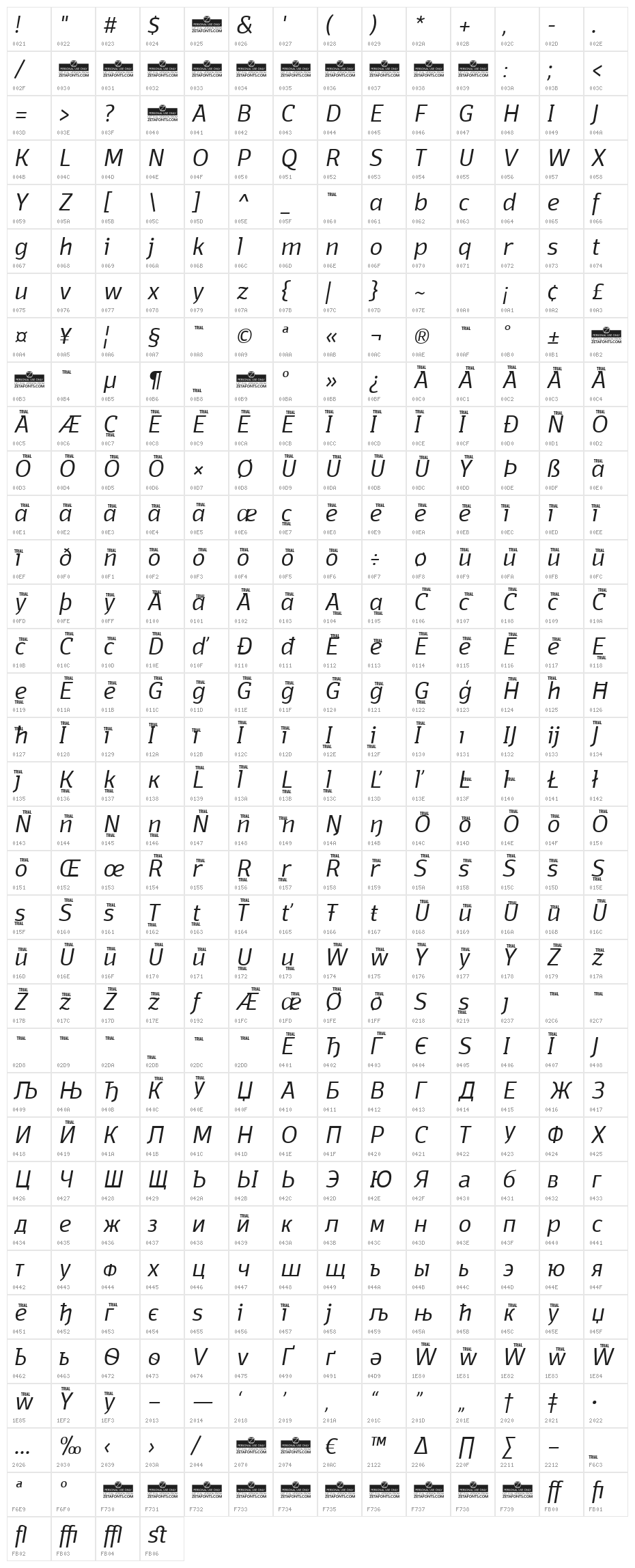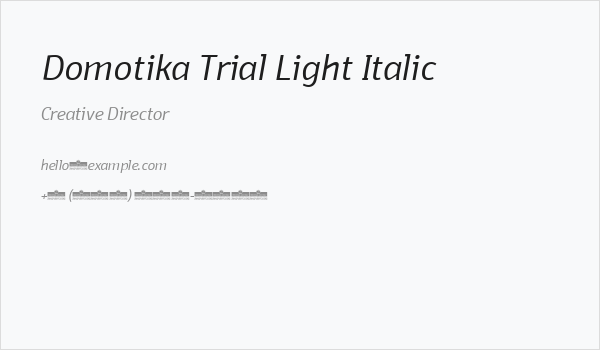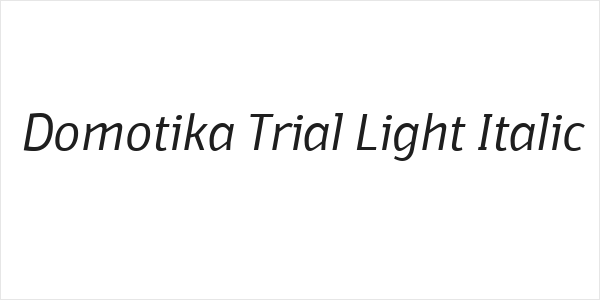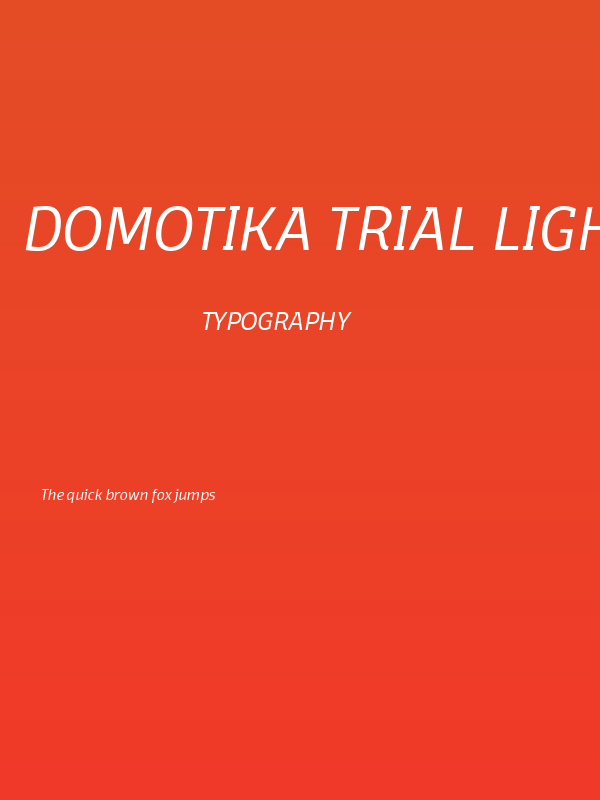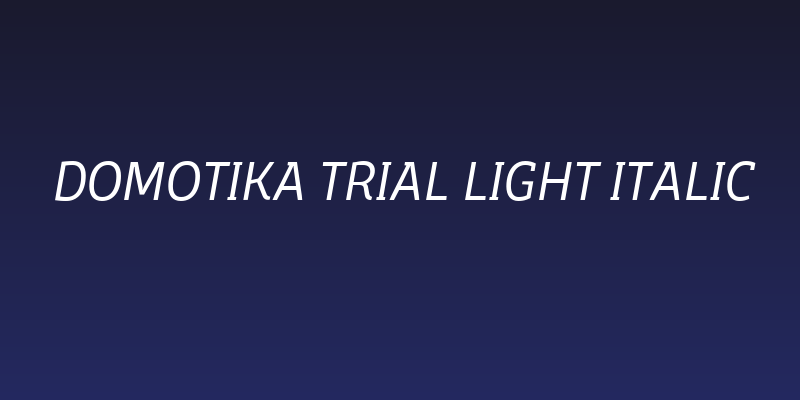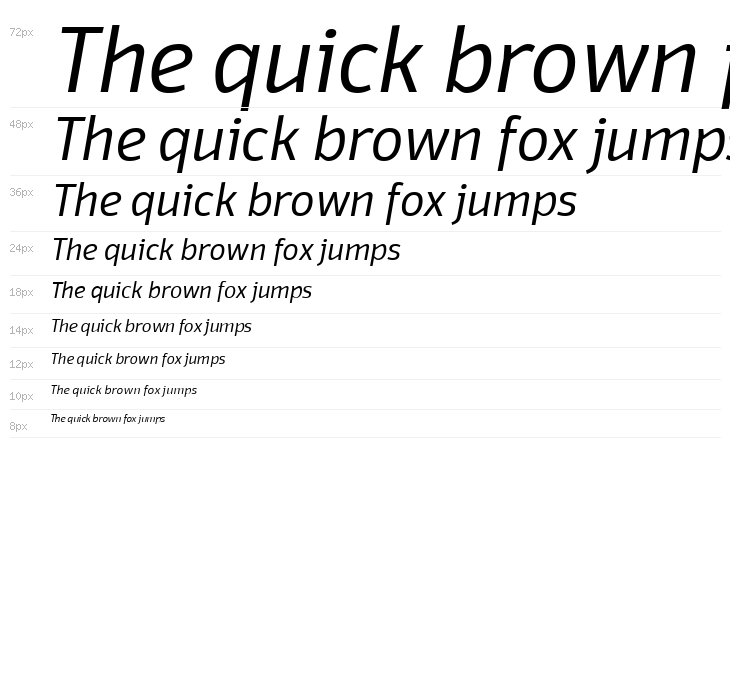
Domotika Trial Light Italic Font
Domotika Trial Light Italic Description
This font features a sleek and modern design with a light weight and italic style. The characters are slightly slanted, giving a sense of motion and elegance. The clean lines and minimalistic approach make it suitable for contemporary designs. The uppercase and lowercase letters are well-proportioned, and the numerals are clear and easy to read. Special characters are included, maintaining the font's cohesive look. The overall appearance is refined, making it versatile for various applications.
Proposed ProjectsIdeal for branding, editorial design, websites, and digital content where a modern and elegant touch is desired.